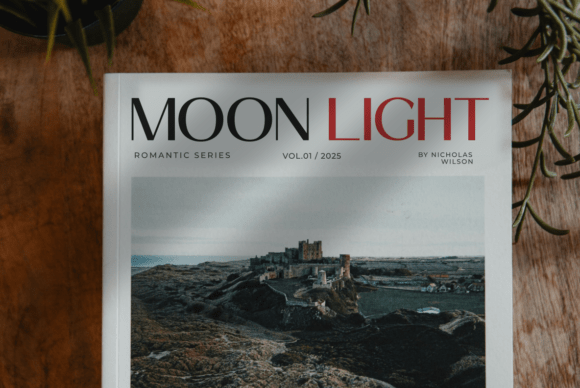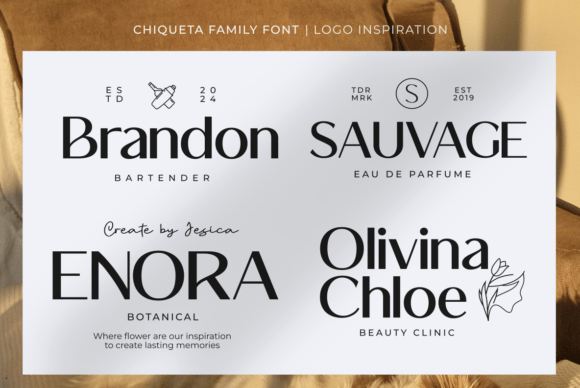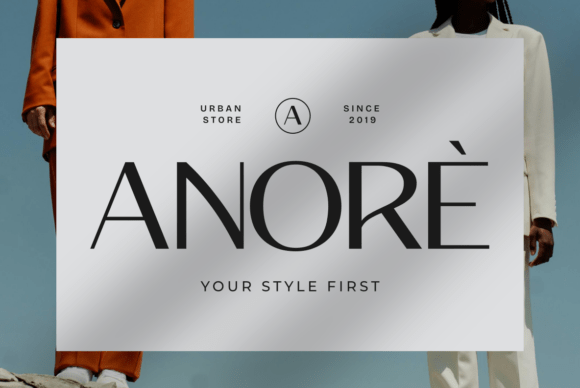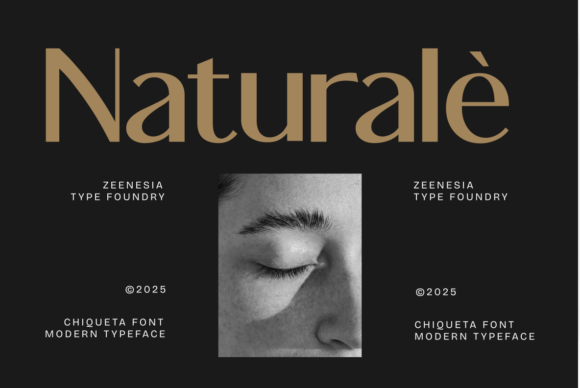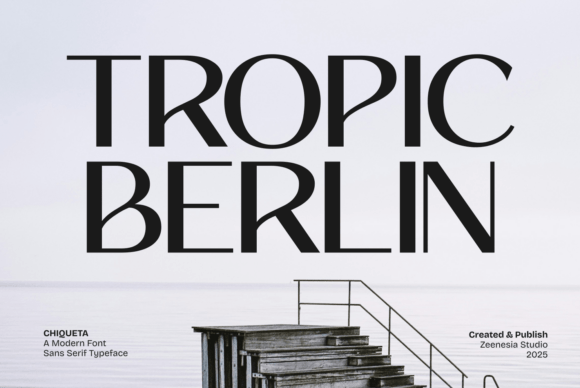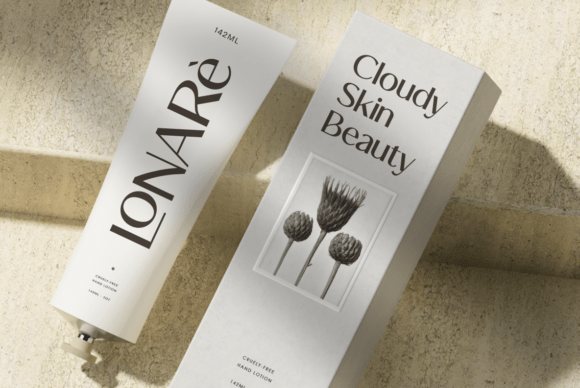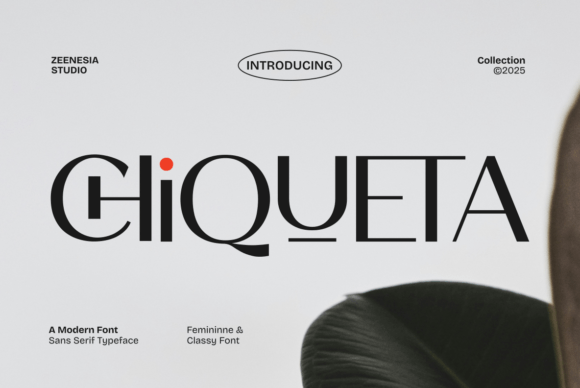
Discover the Elegance of Chiqueta Font: A Modern Sans-Serif Typeface for High-End Branding
In the world of typography, a well-designed font can elevate a brand’s visual identity and make it stand out in a crowded market. Chiqueta, a modern sans-serif typeface, has been making waves in the design community with its perfect blend of elegance and contemporary style. This sleek and minimalist font is crafted to provide a sophisticated visual identity suitable for high-end branding, and its versatility makes it an excellent choice for various design applications.
The Design Philosophy Behind Chiqueta
Chiqueta’s design is rooted in a deep understanding of what makes a typeface both timeless and trendy. Its refined curves and distinctive geometric touches create a unique character that is both stylish and luxurious. The font’s sleek letterforms are designed to convey a sense of sophistication and poise, making it an ideal choice for fashion branding, editorial layouts, logos, and premium product packaging.
Key Features of Chiqueta Font
• Unique Character Shapes: Chiqueta boasts unique character shapes that set it apart from other sans-serif typefaces. Each letter is carefully crafted to provide a distinctive look that can help brands establish a strong visual identity.
• Stylish Ligatures: The font features stylish ligatures that add an extra layer of elegance to any text. Ligatures are essential in creating a flowing and harmonious text that is pleasing to the eye.
• Luxurious Aesthetic: Chiqueta’s overall design exudes luxury and sophistication. Its sleek lines, refined curves, and geometric touches create a high-end look that is perfect for brands aiming to convey exclusivity and premium quality.
• 5 Versatile Styles: Chiqueta comes in 5 versatile styles, offering designers the flexibility to choose the perfect variation for their projects. Whether you need a bold statement or a subtle touch, Chiqueta has got you covered.
Applications of Chiqueta Font
Chiqueta’s versatility makes it suitable for a wide range of design applications. Here are some of the areas where this modern sans-serif typeface shines:
• Fashion Branding: In the fashion world, visual identity is everything. Chiqueta’s elegant and sophisticated design makes it an excellent choice for fashion brands looking to establish a luxurious image.
• Editorial Layouts: For editorial projects such as magazines, newspapers, and blogs, Chiqueta provides a clean and modern look that enhances readability and visual appeal.
• Logos: A well-designed logo is crucial for any brand. Chiqueta’s unique character shapes and stylish ligatures make it an ideal choice for creating memorable and impactful logos.
• Premium Product Packaging: For brands that offer high-end products, packaging is an essential part of the overall brand experience. Chiqueta’s luxurious aesthetic makes it perfect for product packaging that needs to convey premium quality.
Why Choose Chiqueta Font?
With so many typefaces available, why should designers and crafters choose Chiqueta? Here are a few compelling reasons:
• Elegance and Sophistication: Chiqueta brings a level of elegance and sophistication that is hard to find in other sans-serif typefaces. Its refined curves and geometric touches create a unique visual identity that can elevate any brand.
• Versatility: With 5 versatile styles, Chiqueta offers creative flexibility without compromising on consistency. This makes it easy to use across various design applications while maintaining a cohesive look.
• High-End Aesthetic: For brands that aim to convey luxury and premium quality, Chiqueta is an excellent choice. Its luxurious aesthetic is perfect for high-end branding, editorial layouts, logos, and product packaging.
Font Name Chiqueta Font
Author zeenesia
Chiqueta font is a modern sans-serif typeface that offers a perfect balance of elegance and contemporary style. Its sleek, minimalist letterforms, refined curves, and distinctive geometric touches create a sophisticated visual identity suitable for high-end branding. With its unique character shapes, stylish ligatures, and luxurious aesthetic, Chiqueta stands out in various design applications, including fashion branding, editorial layouts, logos, and premium product packaging. Whether you’re a designer or a crafter, Chiqueta is an excellent choice for anyone looking to elevate their brand’s visual identity.